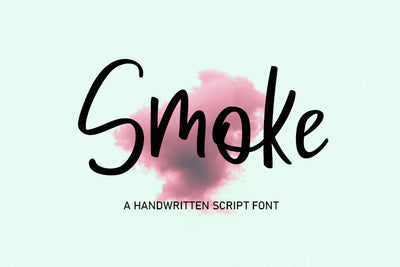
Smoke Bold Handwritten Font
Smoke is a bold brush handwritten font in a casual style. This handwritten font is perfect for your design projects, such as t-shirt designs, blog, quotes, book covers, magazine covers, store signs, and more.
Smoke adalah font tulisan tangan kuas tebal dalam gaya kasual. Font tulisan tangan ini sangat cocok untuk proyek desain Anda, seperti desain kaos, blog, kutipan, sampul buku, sampul majalah, tanda toko, dan banyak lagi.